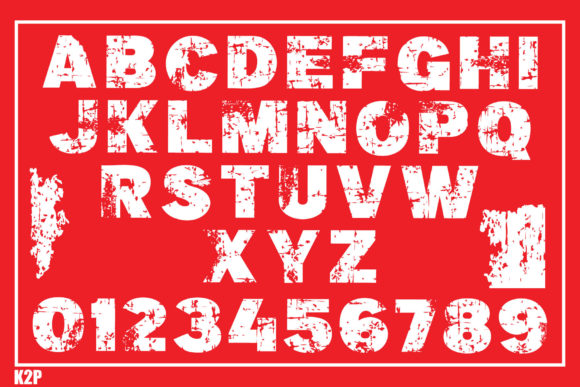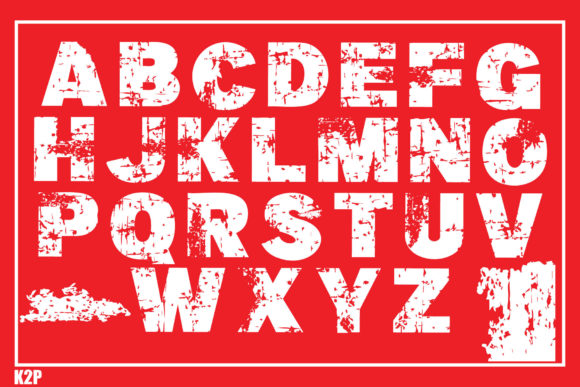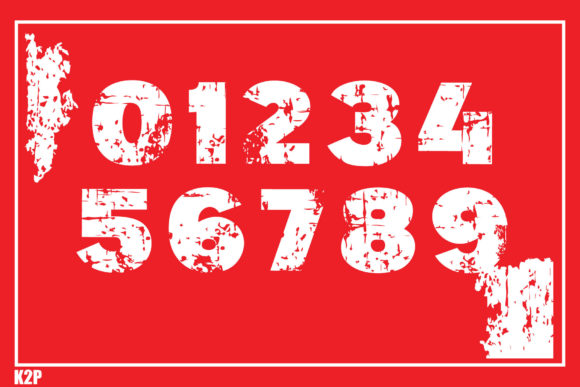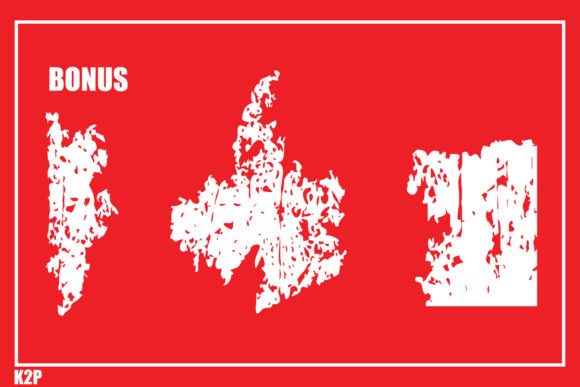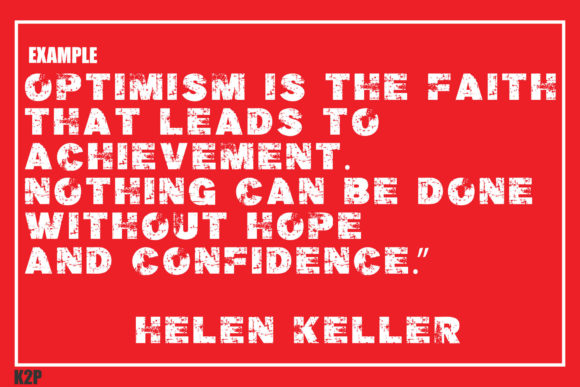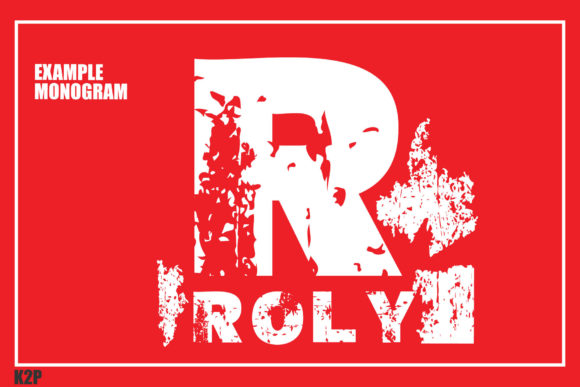
Introduction to Never Lose Font Font
Fonts play a crucial role in design, and the Never Lose Font font is a typeface that brings both character and versatility to any project. Whether you’re working on a branding project, a website, or a print design, the Never Lose Font font offers a unique style that can elevate your work.
Never Lose is a bold, incredibly cool, and assertive display font.
It can be used for various design ideas related to speed, sports, or both Have fun with this beautiful font and explore its endless variations.
Key Features of Never Lose Font Font
Why Choose Never Lose Font Font?
The Never Lose Font font is more than just a typeface – it’s a design tool that helps you communicate your message with style and clarity. Its unique character set and versatile design make it suitable for a wide range of applications, from elegant invitations to bold headlines.
With its carefully crafted letterforms and balanced proportions, the Never Lose Font font ensures readability and visual appeal across all mediums.
What makes Never Lose Font font special?
The Never Lose Font font stands out with its unique design, exceptional readability, and versatility across various design applications.